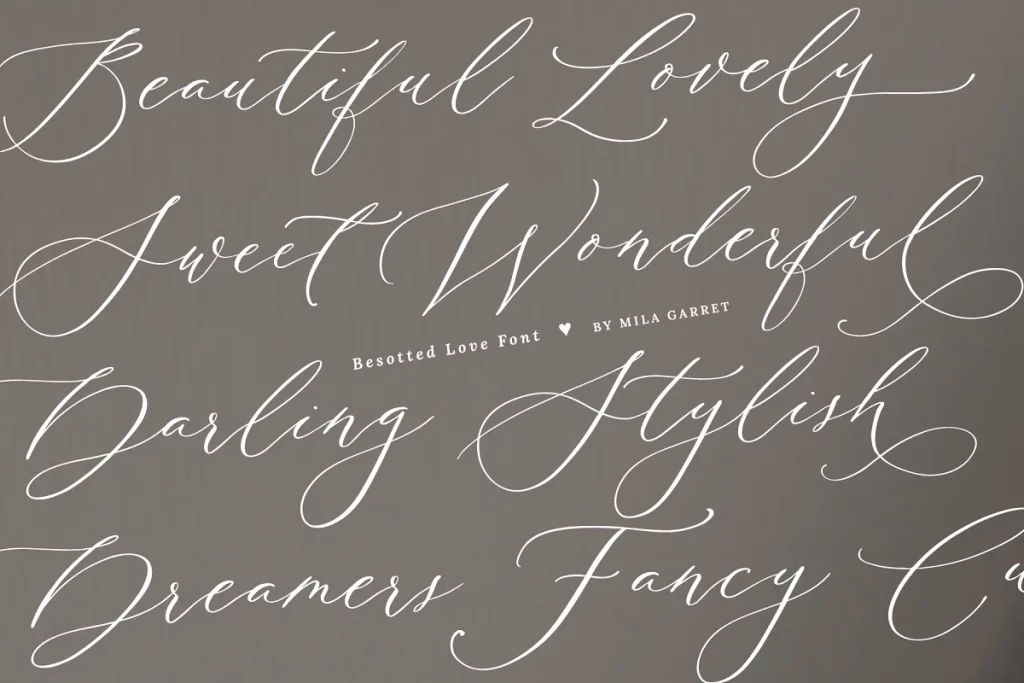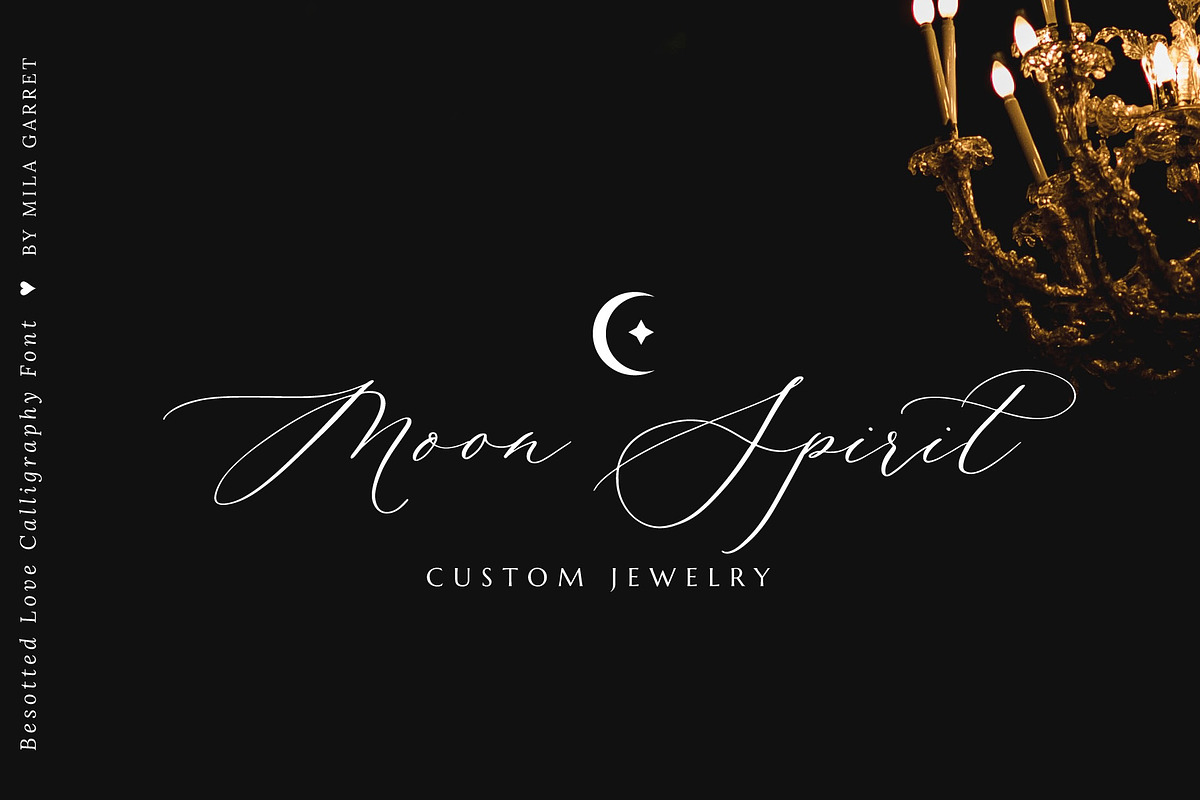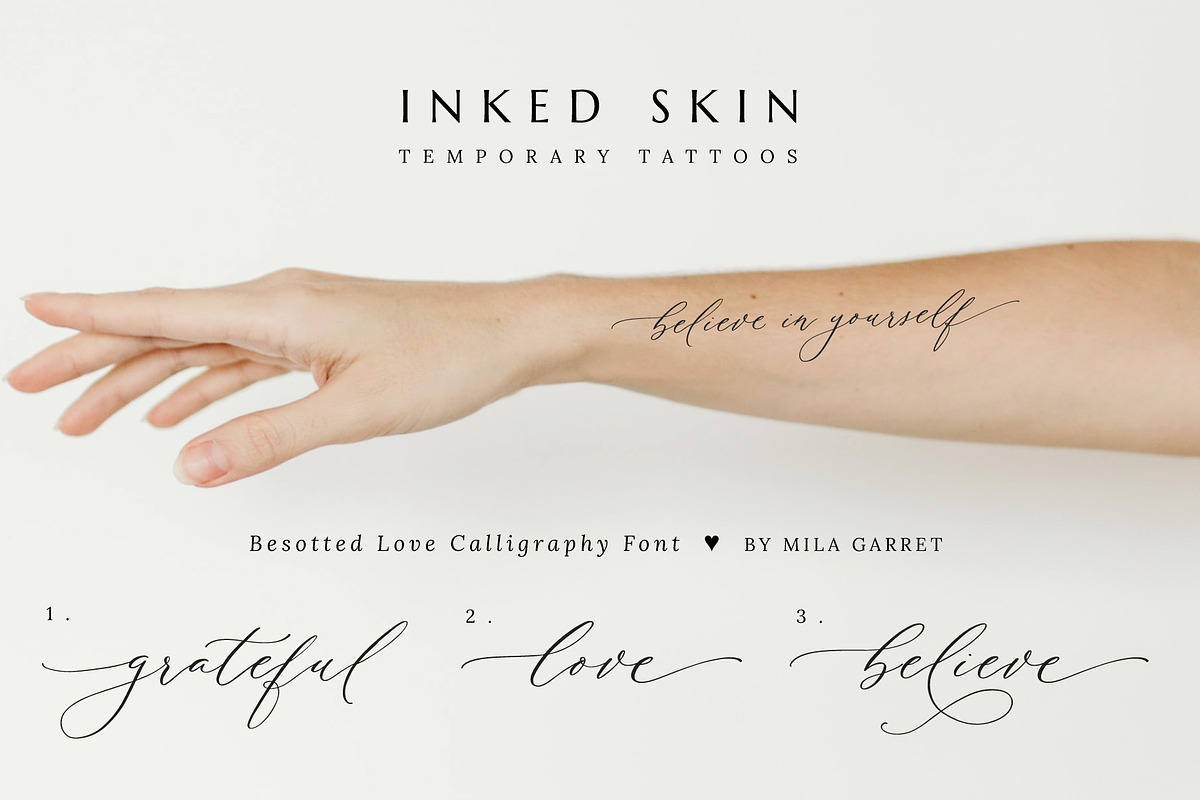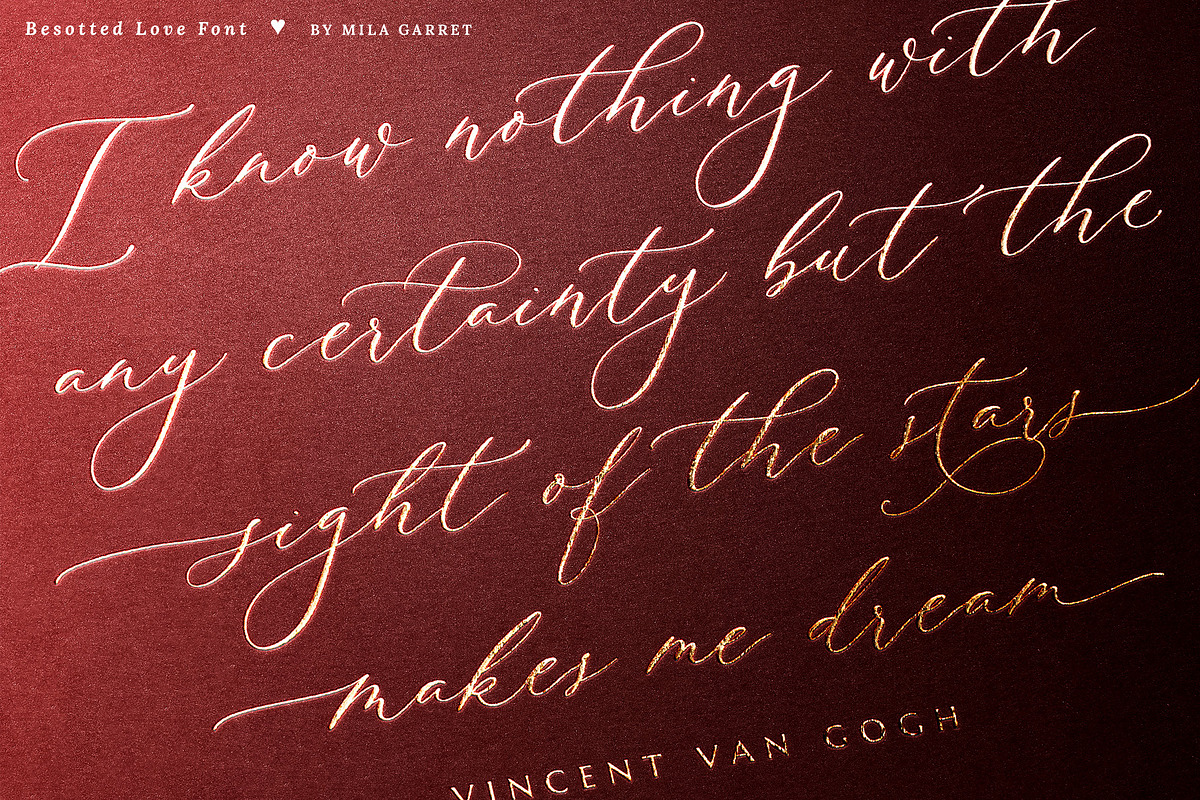
Besotted Love is a luxurious wedding calligraphy font perfect for elegant logos, wedding stationery, photography branding, modern websites, and more! Included are a full set of uppercase swash letters, as well as beginning and ending lowercase swashes, for that signature handwritten look.
- Full Set of standard alphabet and punctuation
- Extra set of beginning swashed capitals
- Extra set of beginning swashed lowercase
- Extra set of ending swashed lowercase
- Extra stylistic alternates
- Multilingual Characters